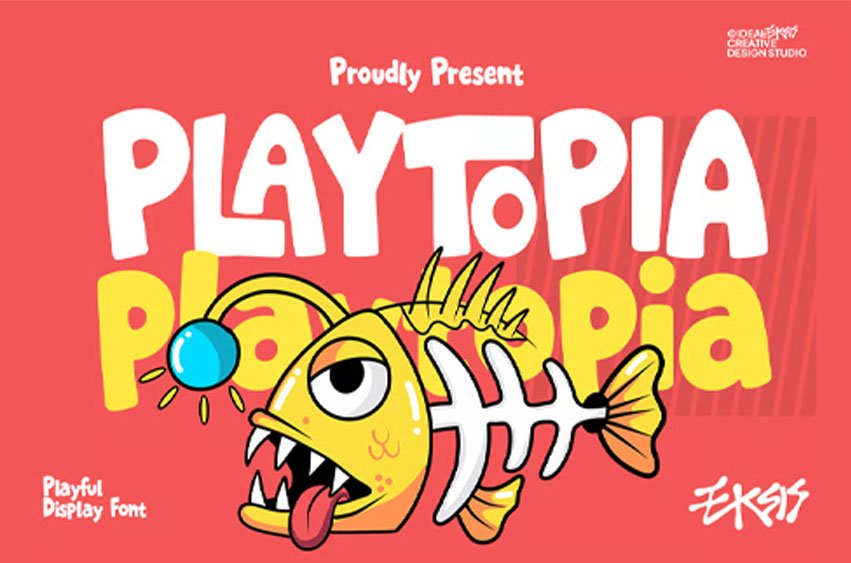
Playtopia Font features heavy, chunky letterforms with a hand-drawn, irregular quality that exudes energy and fun. The strokes are thick and vary slightly in width, giving it a bouncy, organic feel. Terminals are rounded and blunt, avoiding sharp edges to maintain a friendly, approachable aesthetic.
The glyphs have a slight tilt and uneven baselines, which enhances its whimsical and cartoon-like character. It is ideal for children’s books, toy packaging, game interfaces, and any creative project requiring a bold, cheerful headline presence.